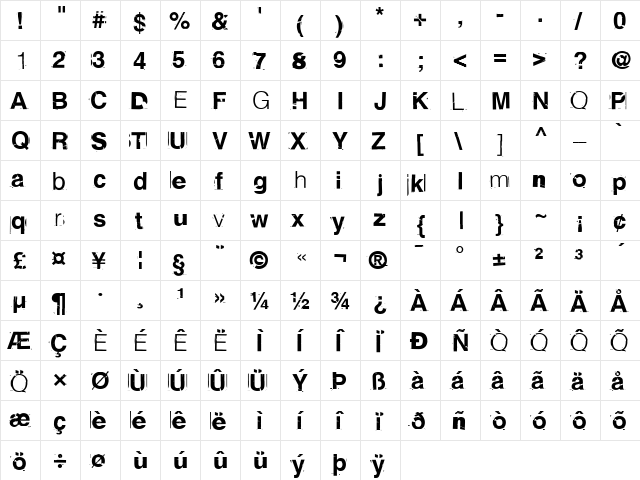
Falseidol Regular
Design Context for Falseidol Typeface
Falseidol is a composed and adaptable typeface that performs quietly and consistently across a wide range of design contexts.